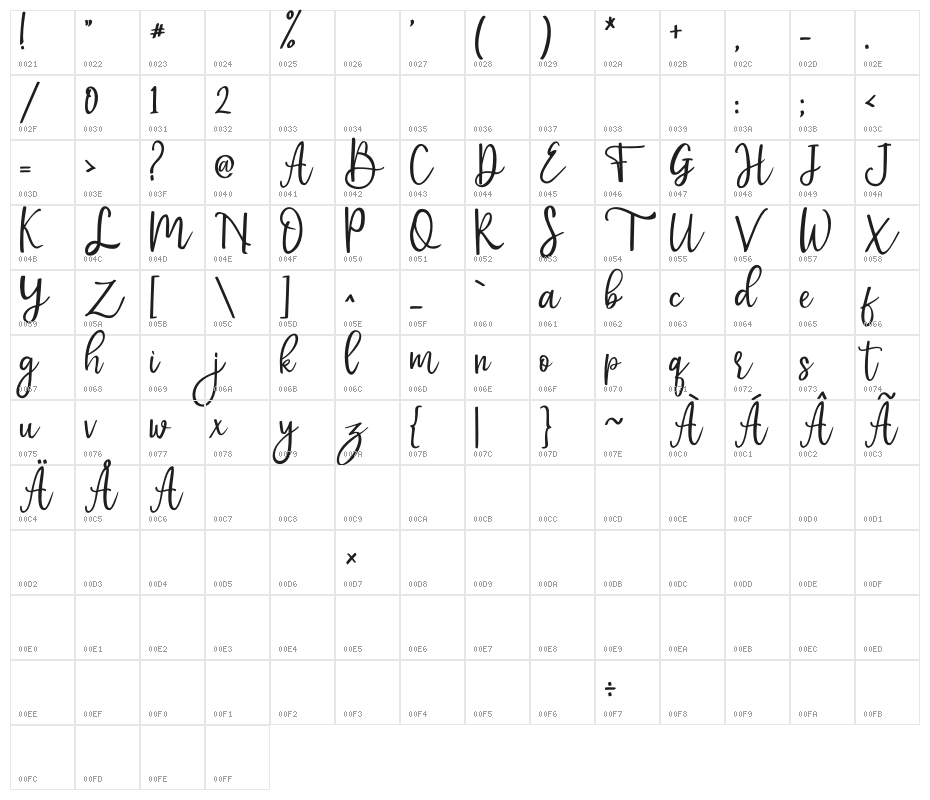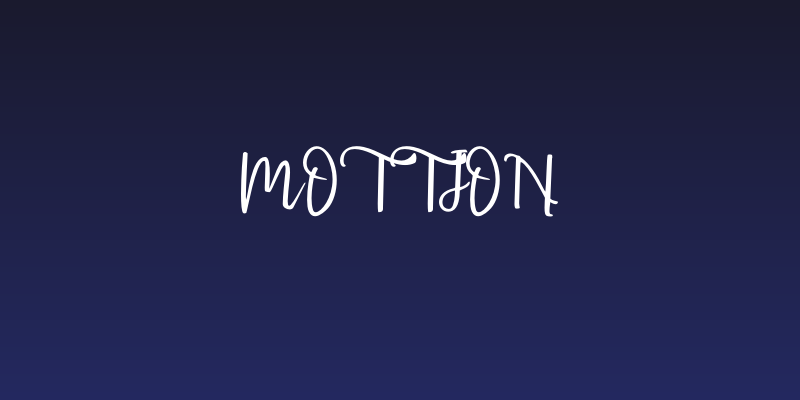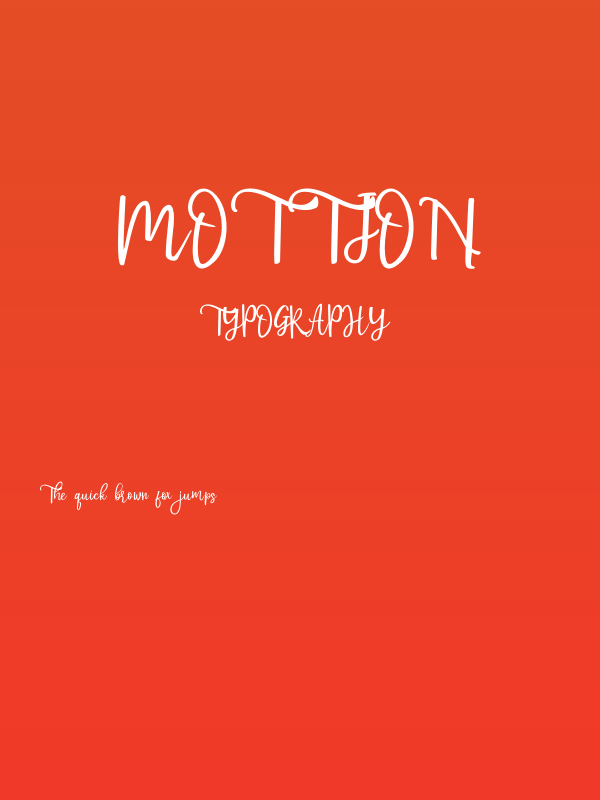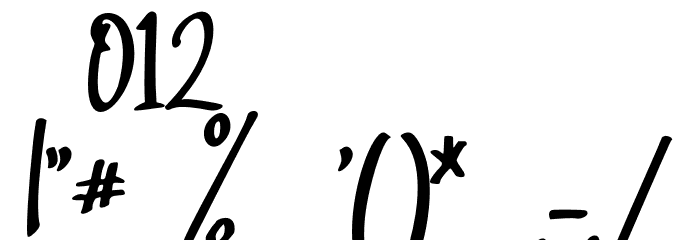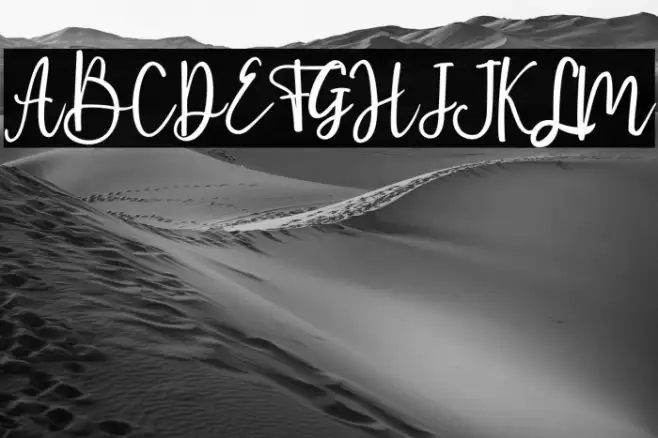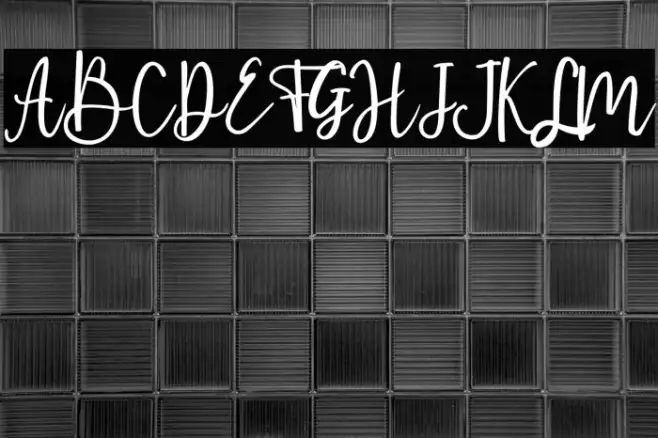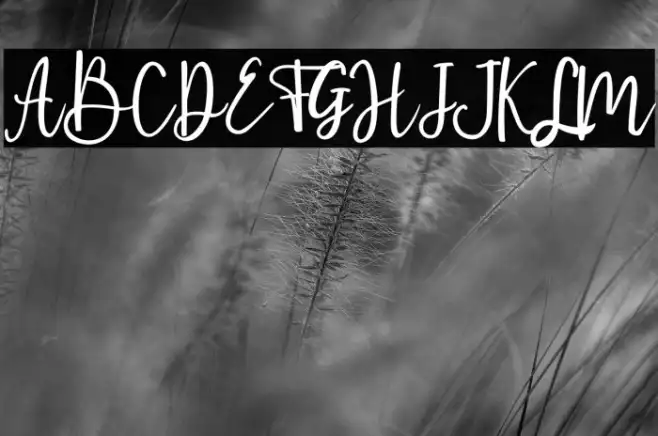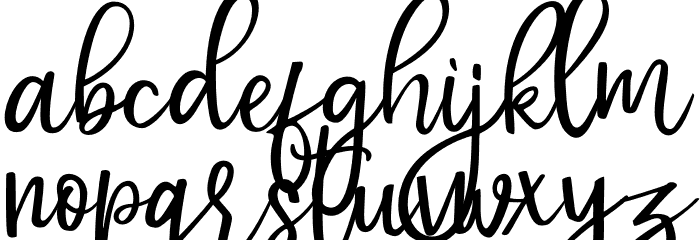
mottion Font
mottion Description
This font features a dynamic and fluid script style, characterized by its elegant, flowing lines and cursive letterforms. The uppercase letters exhibit a playful yet sophisticated design, with varying stroke widths that add a sense of movement and energy. The lowercase letters maintain a consistent style, complementing the uppercase with their smooth curves and loops. The numerals and special characters are crafted with the same attention to detail, ensuring a cohesive look across all elements. This font's artistic flair makes it ideal for creative projects that require a touch of elegance and personality.